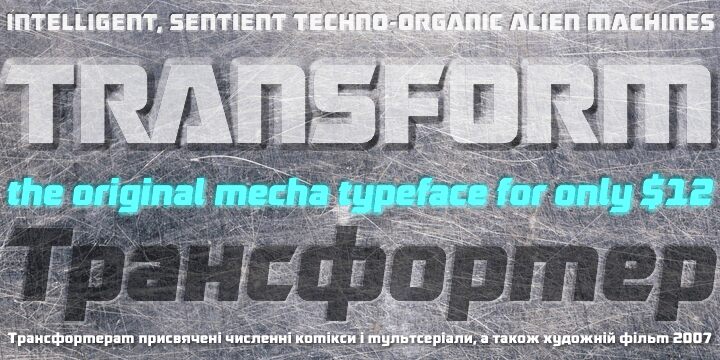
Robofan by Cesar Puertas is a free futuristic display font built from massive, tightly fitted letterforms and an emphatically low, wide stance. Its broad curves, square inner spaces, and abrupt diagonal cuts create a robotic silhouette, with rounded outer edges keeping the construction from looking purely mechanical.
Posters are its strongest setting, especially for science fiction events or electronic music, and the same dense forms can shape arcade game interfaces, album covers, and technology branding with an industrial edge. Across these uses, its machine-cut silhouette supplies the common futuristic cue.
Robofan Free